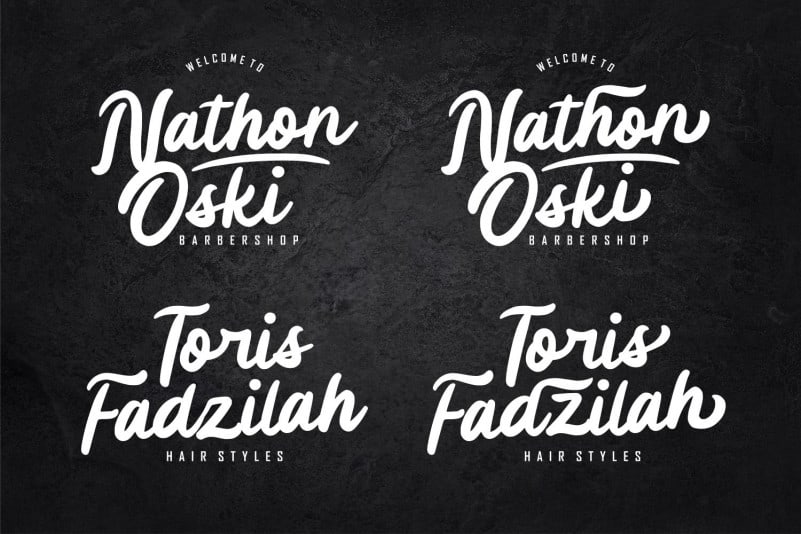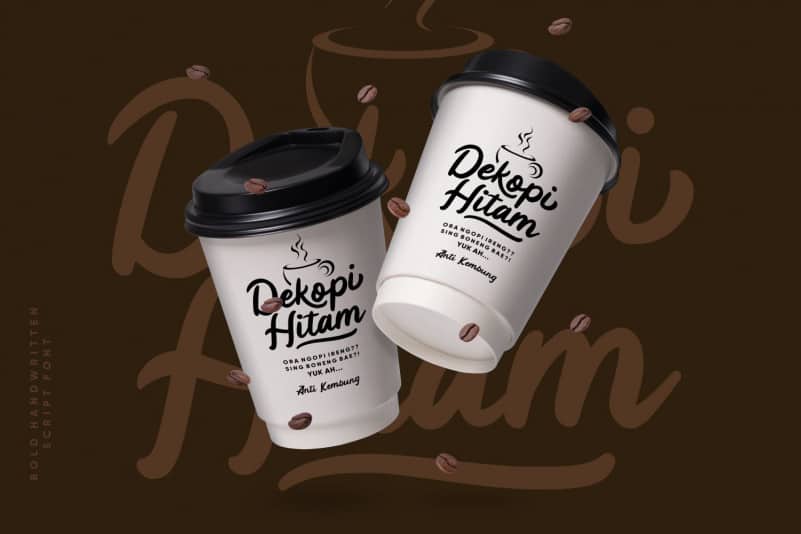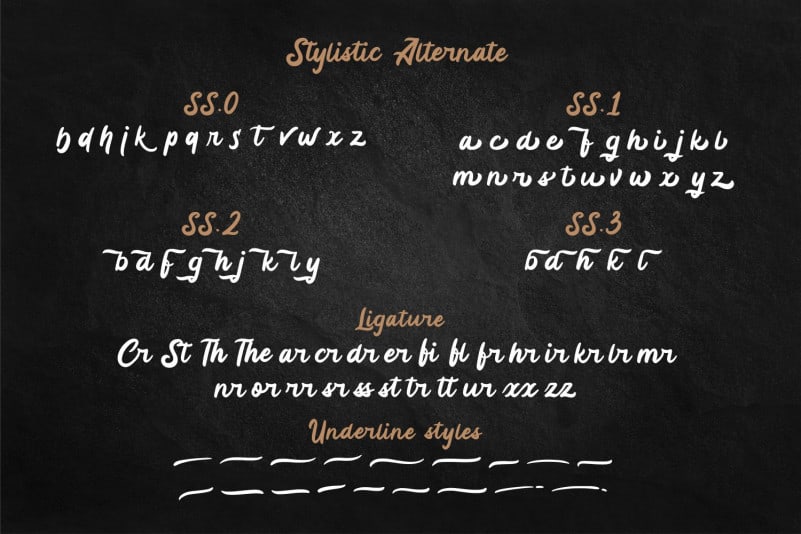
Mayrisand Script Font
Mayrisand Script Font is a gorgeous and bold handwritten font, crafted to give your headlines and logotype projects a stylish touch. This font reads as strong, confident, and dynamic and can add tons of nostalgic character to your designs.